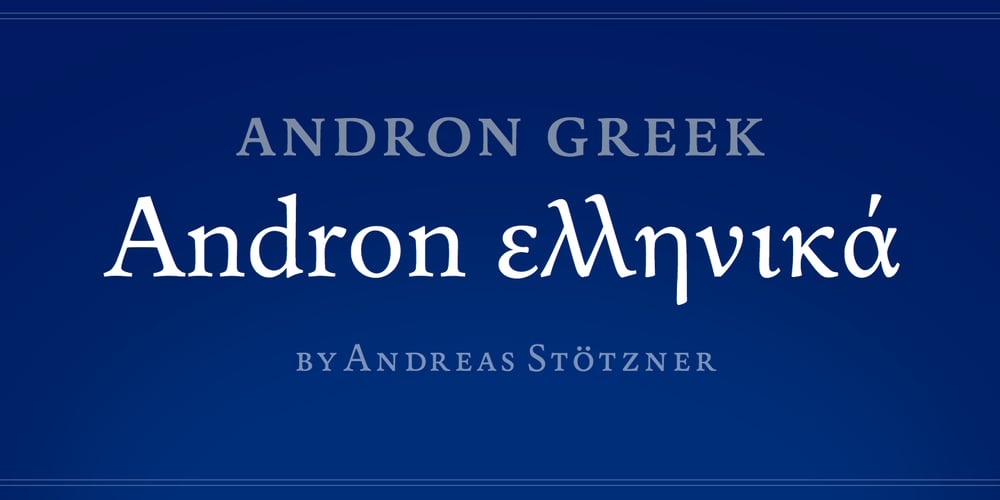
Andron 1 Greek Corpus
Andron 1 Greek Corpus font
Andron 1 Greek Corpus Font Family was designed by Andreas Stötzner and published by SIAS. Andron 1 Greek Corpus contains 8 styles and family package options. Andron 1 Greek is one package of the Andron family that offers full support for both modern and classical Greek in all font styles. Greek scholars value this typeface for its classical elegance and yet modern appeal. Andron 1 Greek additionally offers a great range of ligatures and Greek specialities, such as the original Kai-sign, which you’ll hardly find elsewhere. Get one of the most distinguished Greek text faces for high quality composing! Andron is a new design inspired by the best of Western classical typefaces.